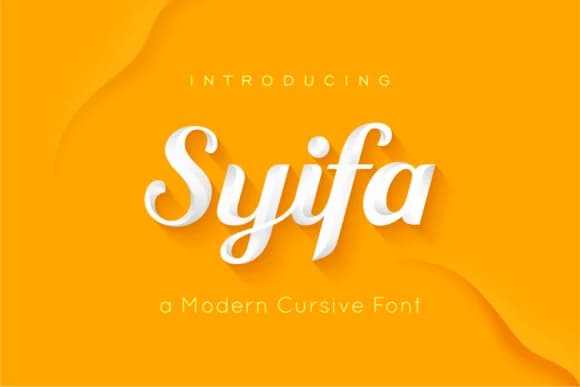
Syifa Script Font by ARToni is a bold, spontaneous handwritten typeface rooted in retro aesthetics. It captures that swagger of hand-lettered graphics from the 70s and 80s, bringing raw energy and personality to type-heavy compositions without ever feeling slick or corporate. Each stroke reads like someone actually held a marker and committed to the gesture, with letterforms that have genuine character baked in.
This script excels at grabbing attention where subtlety isn't the goal. Use it for vintage poster designs, retro album artwork, band logos, or rebrand focused packaging that leans into nostalgia. Concert announcements, record store flyers, and skateboard deck graphics all sing with Syifa's casual confidence. Handmade sticker designs, custom t-shirt graphics, and DIY zine headers work equally well, all benefiting from that unvarnished energy. The letterforms stay clear even at smaller sizes, which makes it genuinely viable for vintage business cards and product labels where impact matters more than elegance.
If your project needs type that feels lived in and deliberately rough around the edges, Syifa delivers that without apology. There's no artifice or pretense here, just straightforward, unpretentious lettering that knows exactly what it's doing. Find it on Creative Fabrica and bring some retro swagger to your next design project.
Syifa Script Font is a script font that shines as a display or heading face. Pair it with a clean sans-serif or serif font for body text β the contrast creates a clear hierarchy while the two styles stay balanced and easy to read.